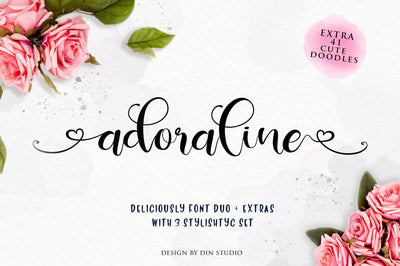
Deliciously Font Duo Set
Deliciously Font Duo Set is a modern font script with more features included:
- Deliciously Regular Font
- 3 Stylistic Set with Multilingual Support
- Bold and Regular Fun Sans Font
- 41 Fun Doodles
- Stylistic Alternates
- Character Set A-Z
- Numerals and Punctuation (OpenType Standard)
With a modern and playful design, I hope the Deliciously Font Duo Set could make your project design more awesome.